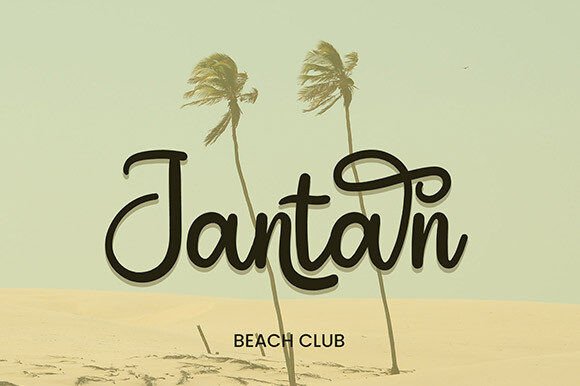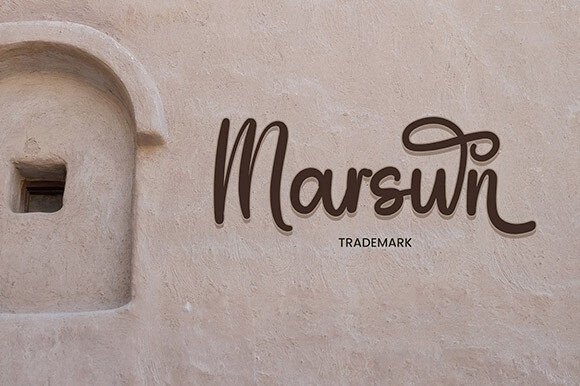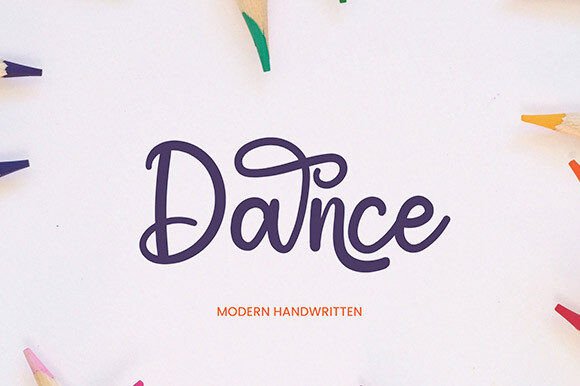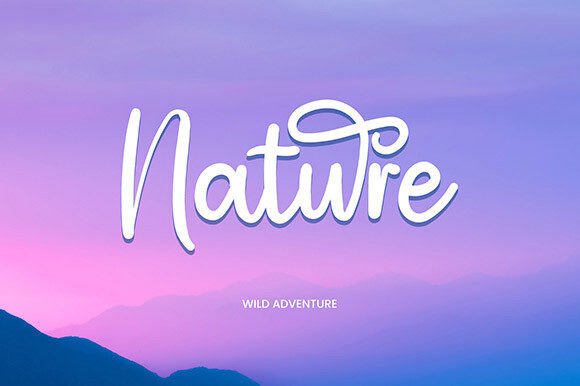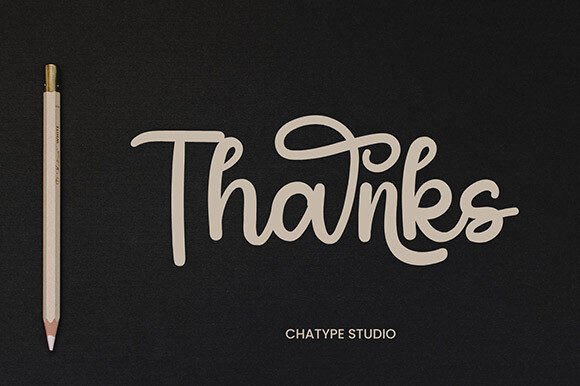
The Art of Whimsy: Unveiling the Enchanting Bambun Font
Have you ever been browsing through a stationery store, and a beautiful handwritten font catches your eye? It’s the kind of moment that sparks creativity and makes you want to grab your pen and paper to start designing. For many of us, it’s the small moments like these that inspire our next project.
Enter the Bambun Font, a versatile script font that’s guaranteed to add a touch of romance to your next design. With its wide range of applications, from greeting cards to headlines, this enchanting font is a must-have for any designer looking to add a personal touch to their work. The Bambun Font is a valuable addition to any designer’s toolkit, offering endless possibilities for creative expression.
Whether you’re a seasoned designer or just starting out, the Bambun Font is sure to become a trusted companion in your creative journey. So why not give it a try and see the magic it can bring to your next project?
- Unique Characteristics: Bambun Font features a unique, hand-drawn design with bold lines and subtle texture, giving it a distinctive and eye-catching appearance.
Bambun Font Review
Overall, I have mixed feelings about the Bambun Font. On one hand, it has some great qualities that make it stand out. ✨ For instance, the font has a unique, quirky feel to it that’s perfect for creative projects or brands that want to stand out from the crowd. The font also comes in a range of weights and styles, which makes it versatile and easy to use.
Here are some of the things that I like about the Bambun Font:
- ✨ Unique and quirky feel that sets it apart from other fonts
- ✨ Comes in a range of weights and styles
- ✨ Great for creative projects or brands that want to stand out
However, there are some limitations to the font that prevent me from giving it a full endorsement. ⚠️ For one, the font can be quite busy and overwhelming, especially at larger sizes. This can make it difficult to read, especially for those with visual sensitivities. Additionally, the font may not be suitable for all types of projects, such as formal documents or presentations.
Overall, I think the Bambun Font is a great option for certain types of projects, but it may not be the best choice for everyone. If you’re looking for a font that’s a little bit quirky and fun, the Bambun Font may be worth checking out.
Use the Bambun Font for headings and titles to add a touch of elegance to your designs. Experiment with different font sizes and colors to create visual interest.
The Bambun Font is ideal for:
- Designing invitations and greeting cards
- Creating wedding stationery and menus
- Developing branding materials and logos